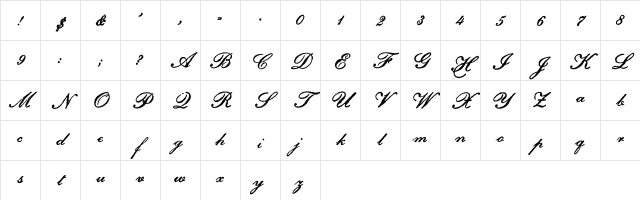
Complete Archive Petite Script Regular glyph index. Displaying only characters natively supported by Archive Petite Script Regular font.
Archive Petite Script flows with the natural rhythm of handwritten lettering, making it ideal for designs that call for warmth and personal expression.
Font Pairing: Combine Archive Petite Script with a simple geometric sans for maximum contrast - the tension between flowing curves and clean structure is a classic typographic pairing.
Pro Tip: Use Archive Petite Script for short runs of text - names, titles, or taglines. Extended body copy in script faces tires the eye quickly.